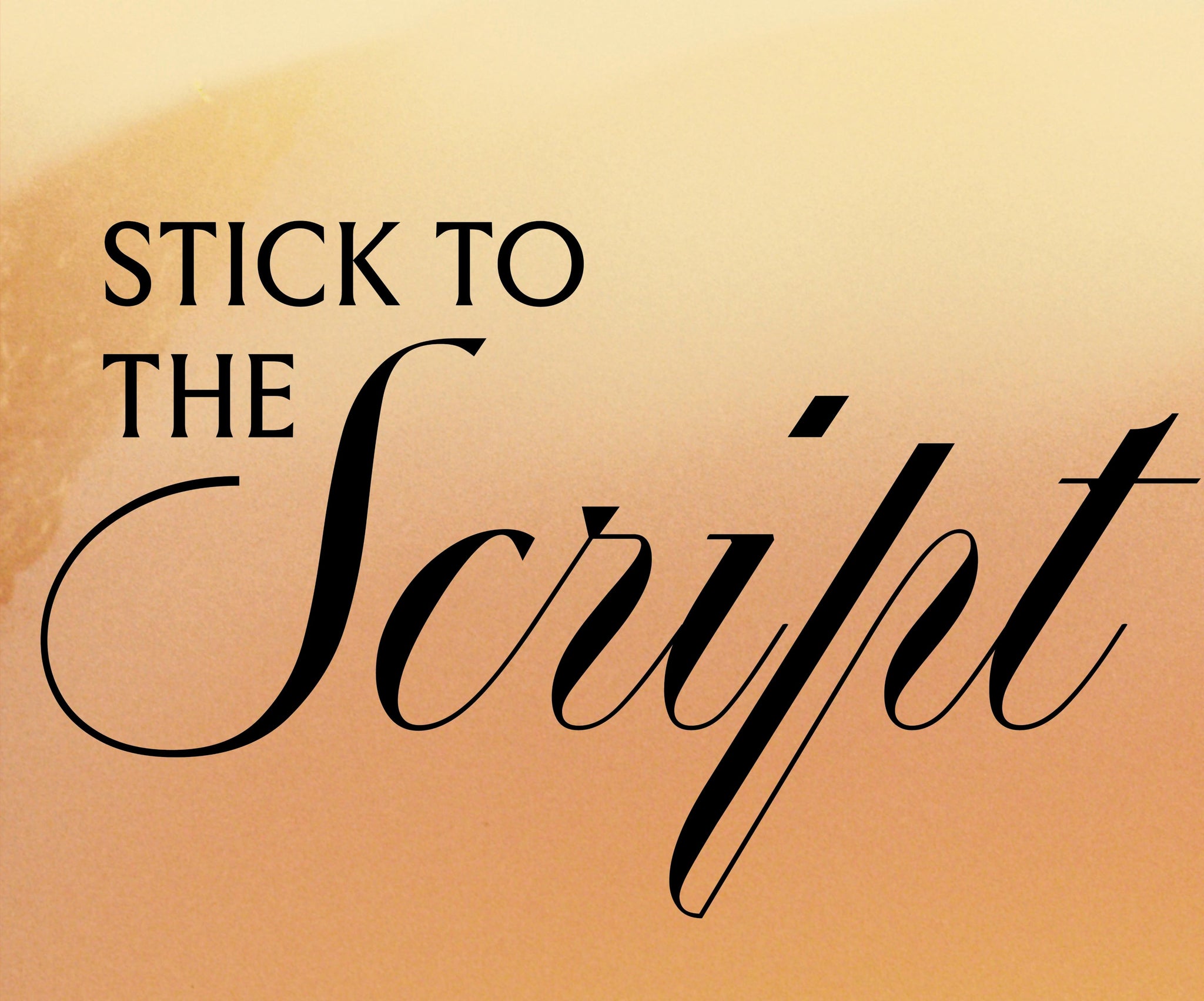
Finding the perfect pairing is always tricky. It’s akin to discovering a harmonious melody amidst a symphony of letters. Especially if you’re looking for the perfect script typeface, and even more, especially when finding a font pairing for said script typeface.
Playground and Right Grotesk
Right Grotesk, with its blend of neutrality and distinctive personality, serves as an ideal partner for PP Playground. This versatile type family offers a range of styles, each adorned with fine details, smooth curves, and moderate contrast. Whether commanding the spotlight or providing subtle support, Right Grotesk’s refined aesthetic complements Playground’s playful charm, creating a dynamic visual harmony that captivates the eye. A handsome couple, no?
Playground and Talisman
Talisman, a typeface inspired by luck and effortless simplicity, brings a touch of serendipity and an undeniably cool edge to the partnership with PP Playground. Its minimalist design and generous range of weights offer a vibrant canvas for Playground’s expressive script. Together, they form a symbiotic relationship where each typeface enhances the other’s visual impact, resulting in designs that exude oddity and elegance in equal measure.
Playground and Agrandir
Agrandir, a contemporary serifless type family celebrating imperfection and humanity, finds a cool, calm resonance with PP Playground’s expressive character. As Playground revels in experimentation and playfulness, Agrandir embraces its own quirks and unconventional shapes in a more subtle yet comparatively chunky fashion.
Playground and OT Jubilee
Courtesy of our sister foundry, OT Jubilee, a font that redefines British heritage with its regal yet unconventional charm, offers a captivating contrast to PP Playground’s whimsical script. With its hand-crafted proportions and unique character, Jubilee adds a touch of class and intrigue to Playground’s playful demeanour that, together, weaves a narrative that merges tradition with innovation whilst appearing effortlessly timeless. Slick.
Playground and Neue Montreal
Of course, we couldn’t make this list without bringing up the fan favourite… Neue Montreal, a versatile Grotesque font inspired by the vibrant design scene of Montreal, forms a dynamic duo with PP Playground, whose uber-clean lines and contemporary aesthetic provide a modern backdrop for Playground’s classical, expressive construction. Whether used for branding or editorial purposes, this pairing strikes the perfect balance between elegance and impact, making it an ideal choice for, well, just about anything?